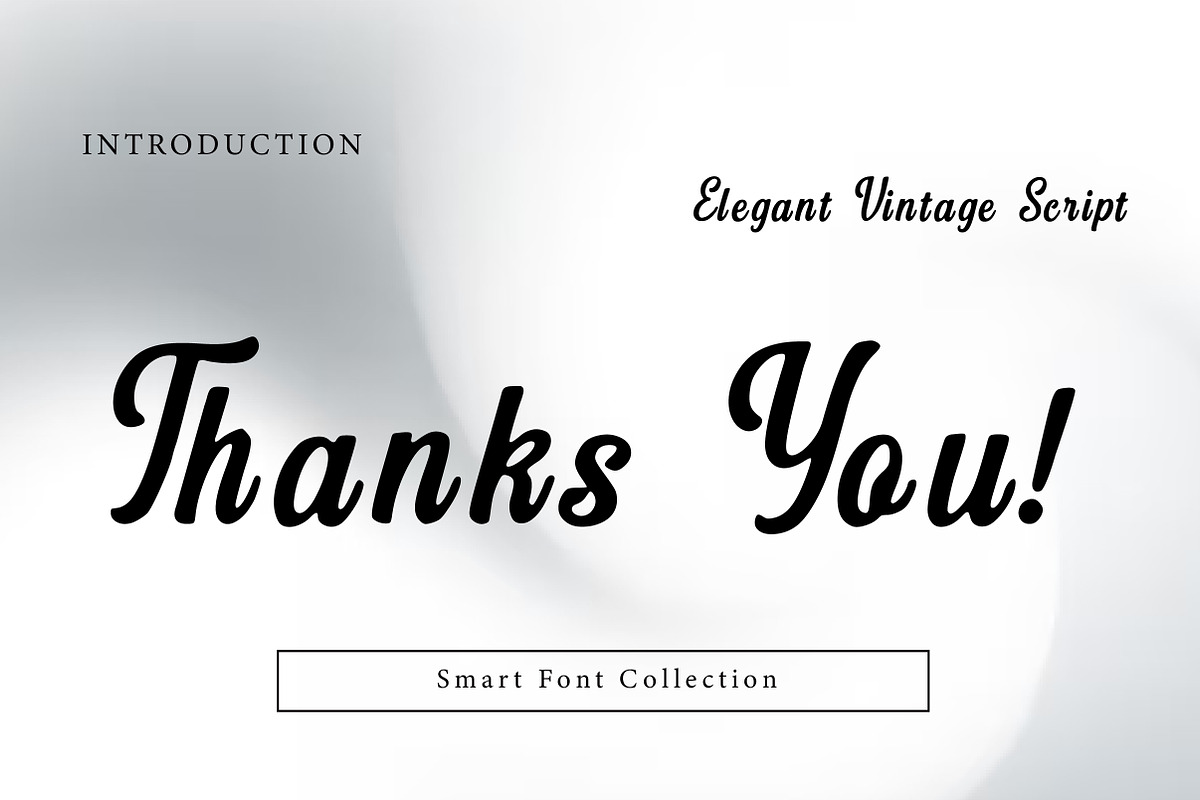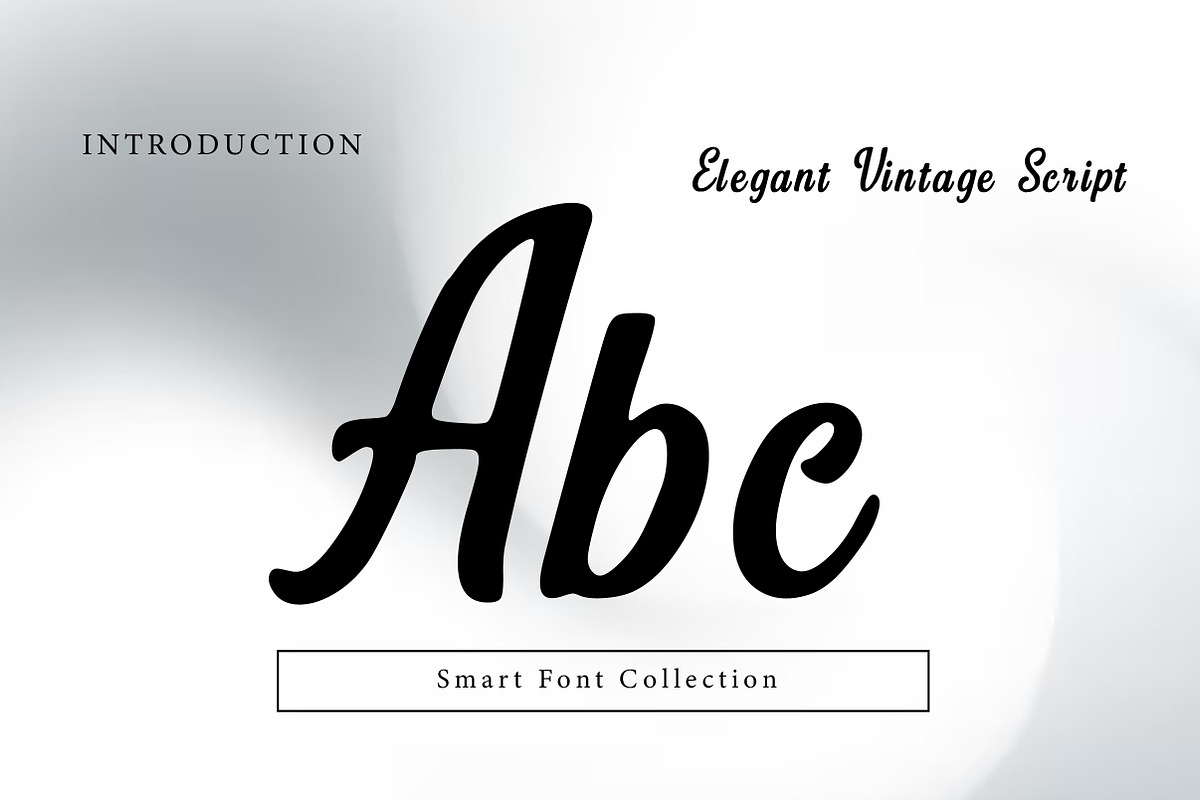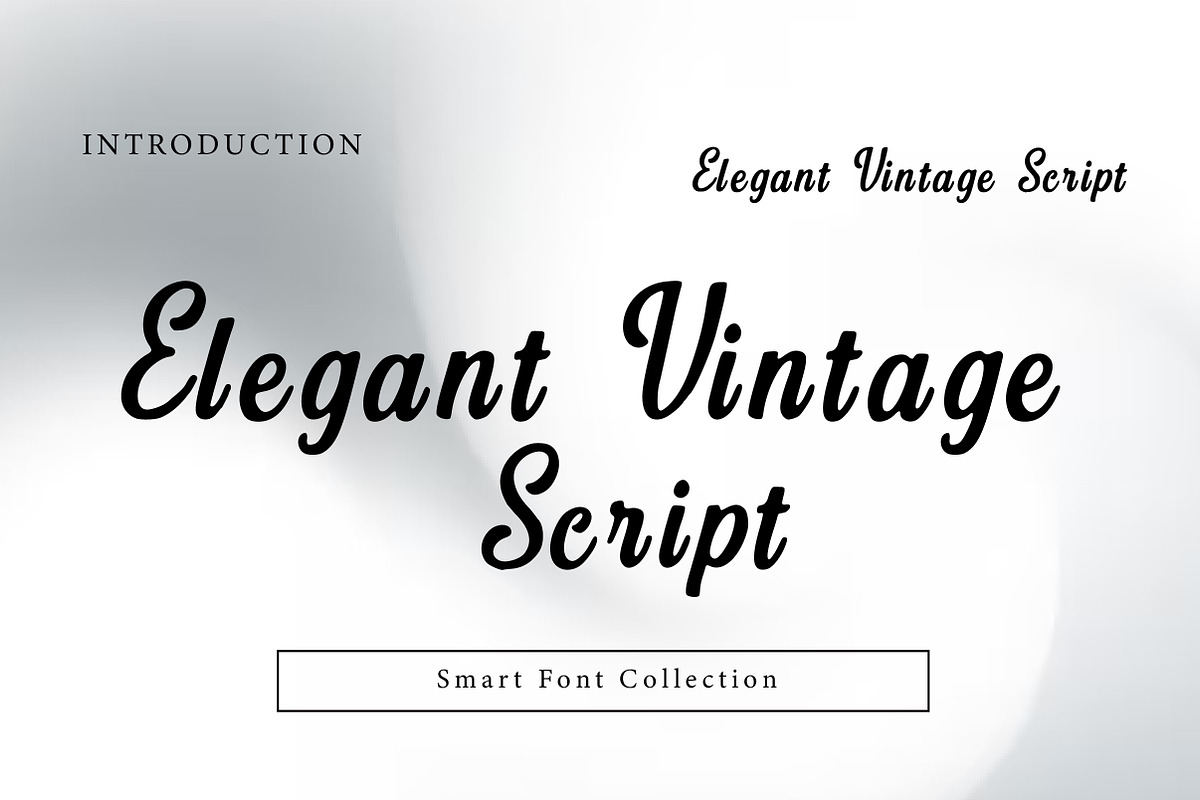
Elegant vintage script
Elegant Vintage Script is a graceful, flowing vintage-inspired script font with smooth curves, refined strokes, and a classic handwritten charm. Influenced by timeless calligraphy and retro lettering, it’s perfect for wedding invitations, logos, branding, packaging, labels, quotes, signage, and luxury editorial designs. Elegant Vintage Script delivers sophistication, romance, and nostalgic elegance in every letter.